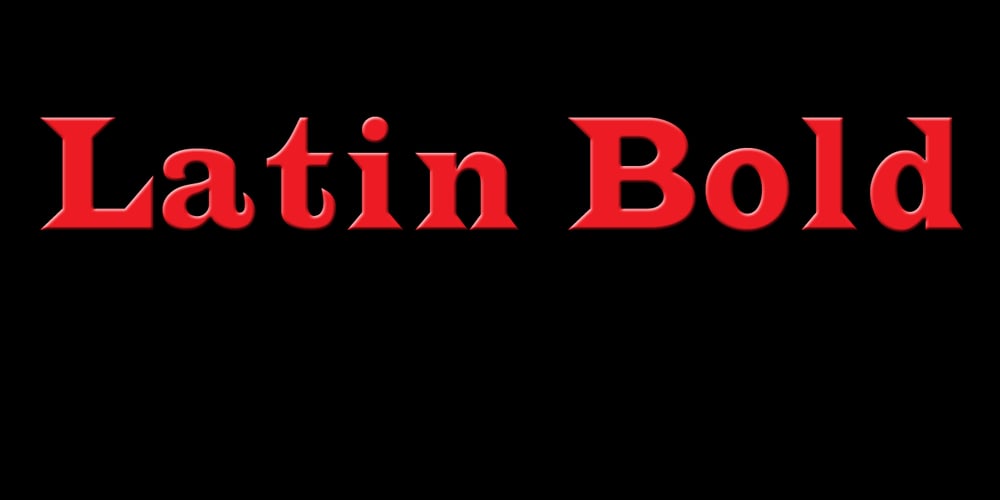
Latin
Latin font
Latin Font Family was designed by Jordan Davies and published by Wooden Type Fonts. Latin contains 4 styles and family package options. A revival of one of the popular wooden type fonts of the 19th century, suitable for text or display, short ascenders and descenders, serifs triangular.